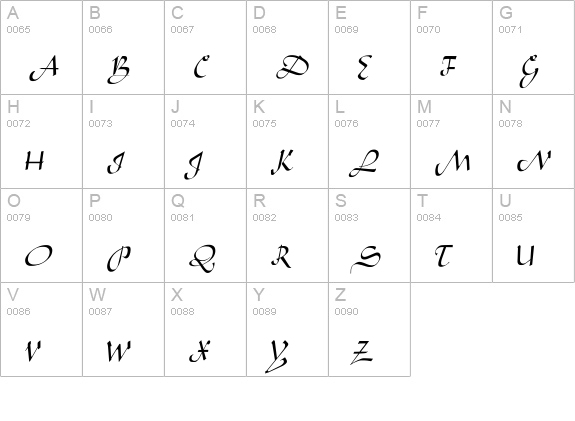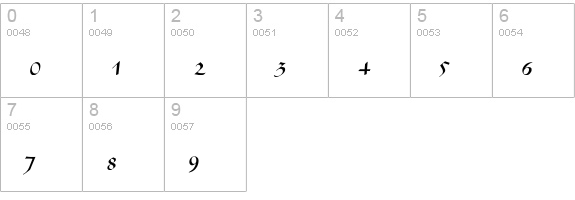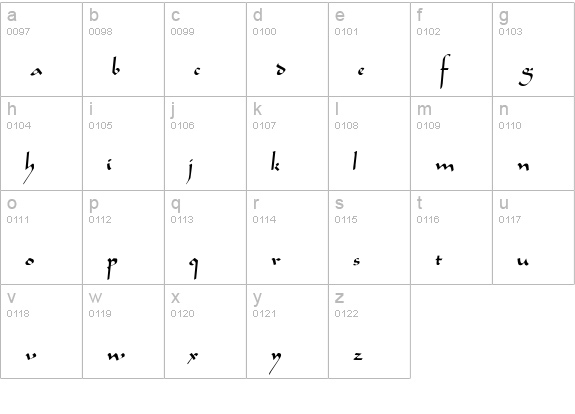
Alibabo Font Details
Introducing Alibabo font, a versatile and stylish typeface that is perfect for a wide range of design projects. With its elegant curves and modern appeal, Alibabo font brings a touch of sophistication to any text. Whether you're creating a logo, website, or print design, this font is sure to make a statement. Best of all, Alibabo font is available for free download at FontsMarket.com. That's right, you can access this high-quality font without spending a dime. So why wait? Add Alibabo font to your collection today and elevate your designs to the next level.